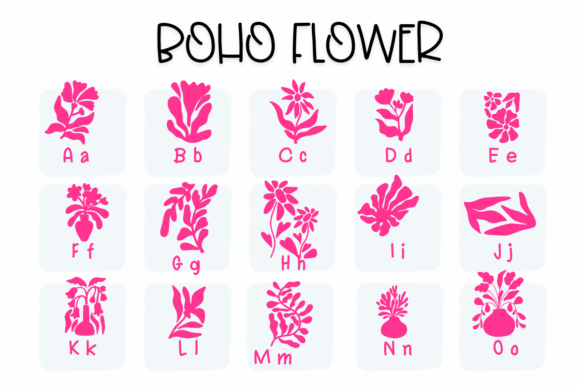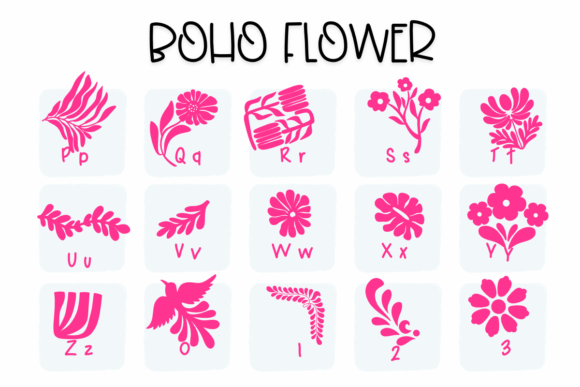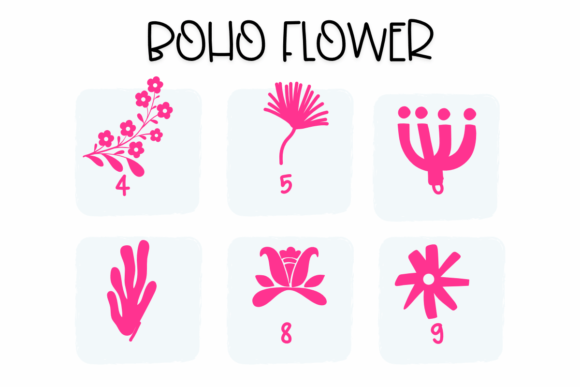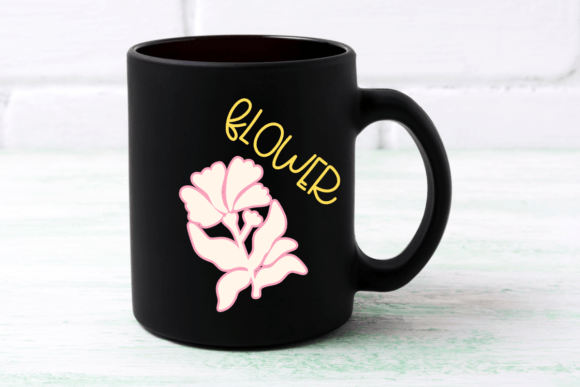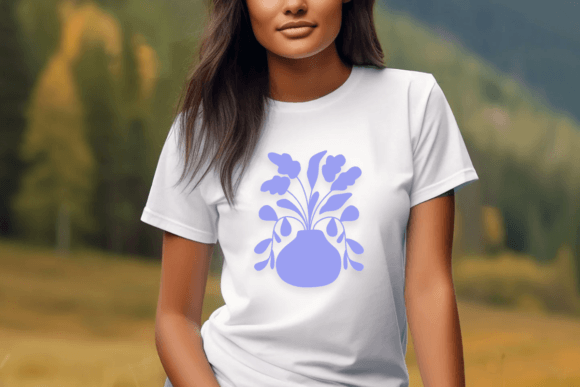
Introducing Boho Flower Font: Elevate Your Creative Projects with a Touch of Floral Elegance
Are you a designer, crafter, or DIY enthusiast looking for a unique and captivating font to add a personal touch to your creative projects? Look no further than Boho Flower Font, a stunning dingbats font that embodies the essence of floral elegance. With its beautifully sketched theme, Boho Flower Font is the perfect addition to your design toolkit, allowing you to create breathtaking wedding invitations, DIY crafts, decorations, logos, and many other imaginative projects.
What is Boho Flower Font?
Boho Flower Font is a carefully crafted dingbats font that features an exquisite collection of floral illustrations, perfect for adding a touch of bohemian charm to your designs. The font’s sketched theme gives it a delightfully hand-drawn feel, making it ideal for creating unique and eye-catching visual content. Whether you’re a professional designer or a crafty DIY enthusiast, Boho Flower Font offers endless possibilities for creative expression.
Key Features of Boho Flower Font
- Floral Sketched Theme: Boho Flower Font boasts a beautiful, hand-sketched floral theme that adds a touch of elegance and sophistication to your designs.
- Dingbats Font: As a dingbats font, Boho Flower Font features a collection of illustrations and symbols that can be used to create stunning visual content.
- Versatile: Boho Flower Font is perfect for a wide range of creative projects, including wedding invitations, DIY crafts, decorations, logos, and more.
Creative Ways to Use Boho Flower Font
Boho Flower Font is an incredibly versatile font that can be used in a variety of creative projects. Here are some inspiring ideas to get you started:
- Wedding Invitations: Add a touch of romance and elegance to your wedding invitations with Boho Flower Font’s beautiful floral illustrations.
- DIY Crafts: Use Boho Flower Font to create stunning DIY crafts, such as handmade cards, gift tags, and decorations.
- Decorations: Boho Flower Font is perfect for creating eye-catching decorations, including wall art, garlands, and other home decor items.
- Logos: Use Boho Flower Font to create unique and memorable logos for your business or brand.
- Social Media Graphics: Add a touch of personality to your social media graphics with Boho Flower Font’s beautiful floral illustrations.
Tips for Getting the Most Out of Boho Flower Font
To unlock the full potential of Boho Flower Font, here are some expert tips:
- Experiment with Colors: Boho Flower Font looks stunning in a variety of colors, so don’t be afraid to experiment and find the perfect hue for your design.
- Mix and Match: Combine Boho Flower Font with other fonts and illustrations to create unique and visually striking designs.
- Pay Attention to Details: Boho Flower Font’s sketched theme offers a wealth of creative possibilities, so take the time to explore and appreciate the intricate details.
Boho Flower Font is a breathtaking dingbats font that offers a world of creative possibilities for designers, crafters, and DIY enthusiasts. With its beautiful floral illustrations and versatile design, Boho Flower Font is the perfect addition to your design toolkit. Whether you’re creating wedding invitations, DIY crafts, decorations, logos, or social media graphics, Boho Flower Font is sure to elevate your designs and add a touch of elegance and sophistication. So why wait? Download Boho Flower Font today and unlock a world of creative possibilities!